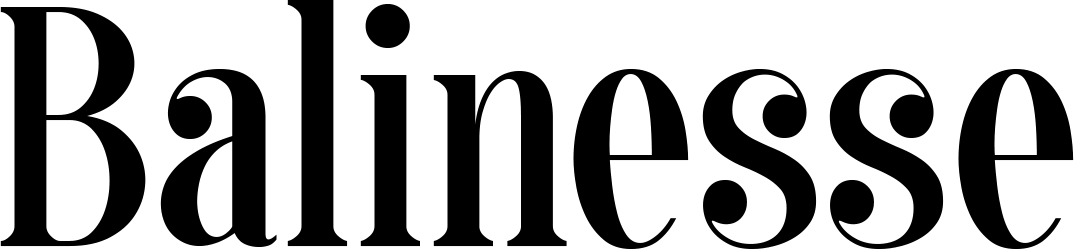
Balinesse Font
Using simple and formal fonts is like choosing the right outfit for a business meeting. In content production and logo design, you need to impress and engage your audience in a few seconds. Balinesse is a serif font that you can use to convey a sense of respect and trust to the audience. One of the uses of this font is to design advertising posters.